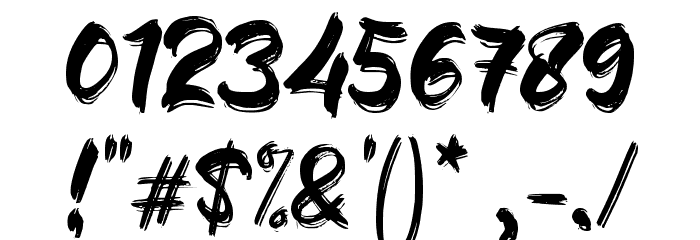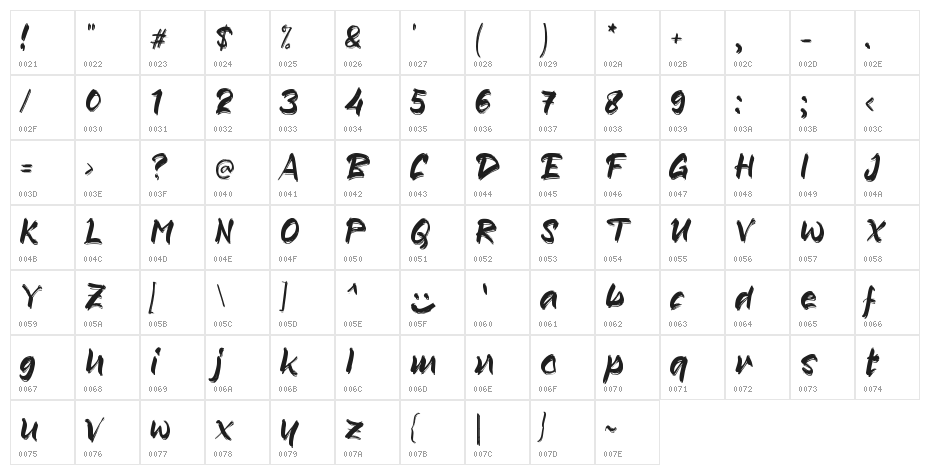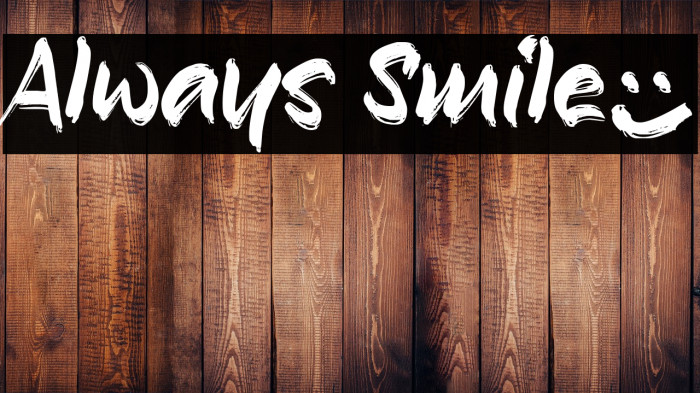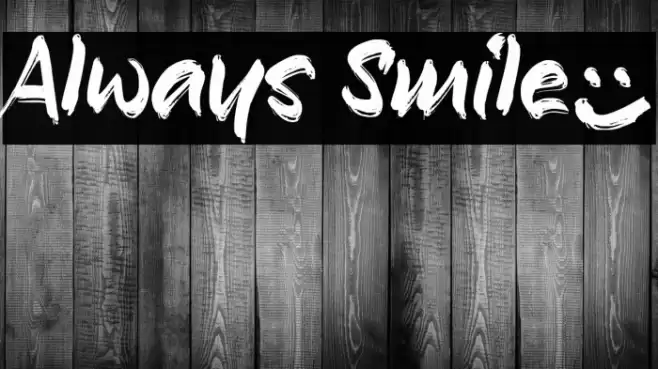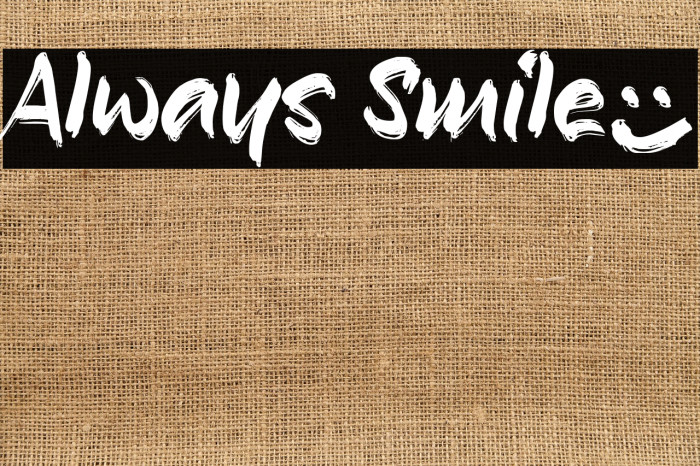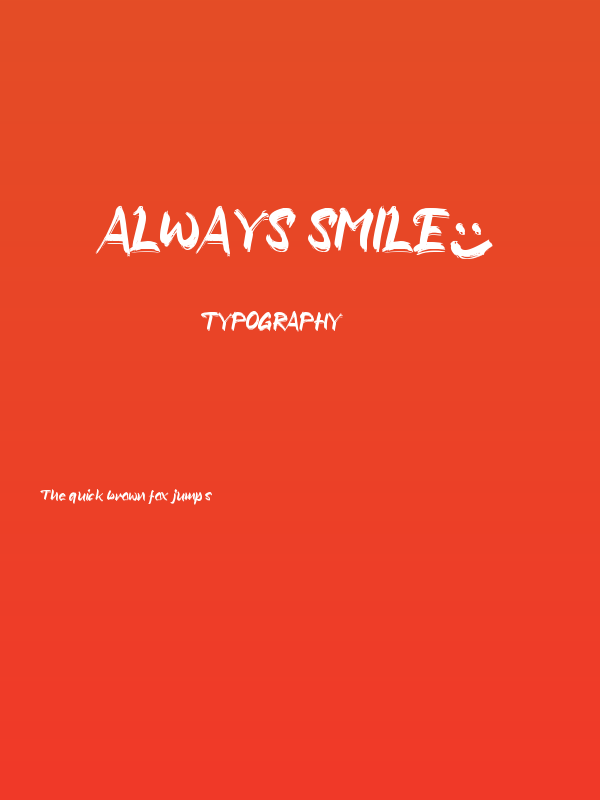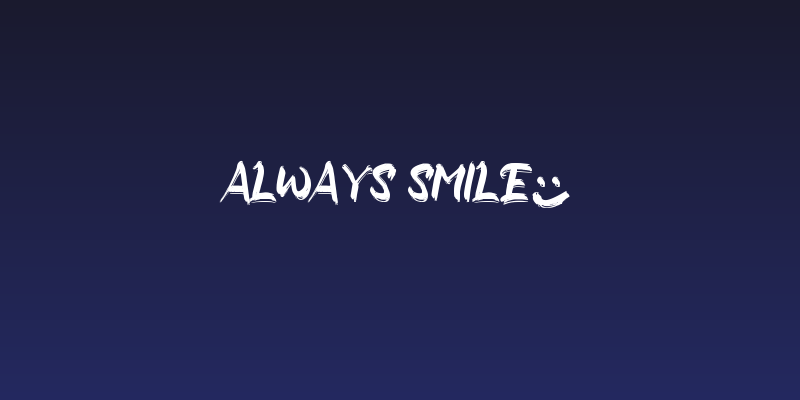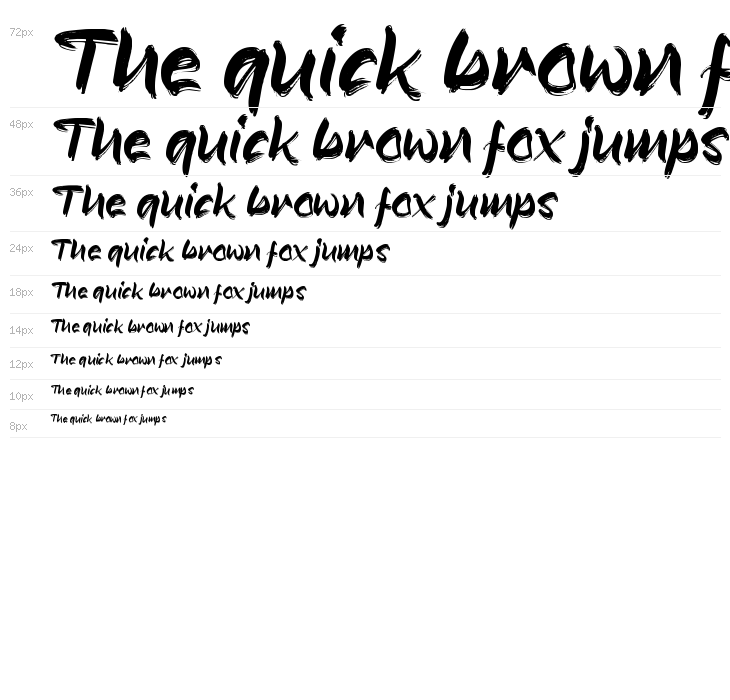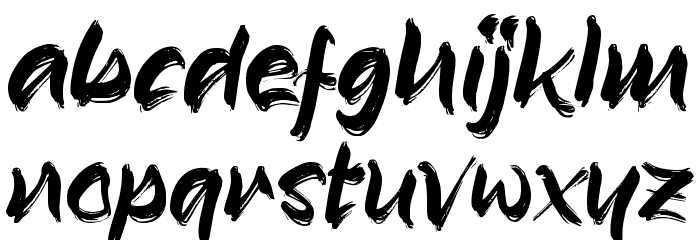
Always Smile_ Font
Always Smile_ Description
This font exudes a dynamic and energetic vibe with its bold, brush-like strokes. The characters are crafted with a sense of movement, giving them a lively and expressive appearance. The uppercase and lowercase letters maintain a consistent style, with varying stroke widths that add a sense of rhythm and flow. The numbers and special characters are equally expressive, making them stand out with their artistic flair. This font is perfect for projects that require a touch of creativity and boldness, such as posters, branding, and artistic designs.
| Proposed Projects | Ideal for creative projects like posters, branding, and artistic designs. |